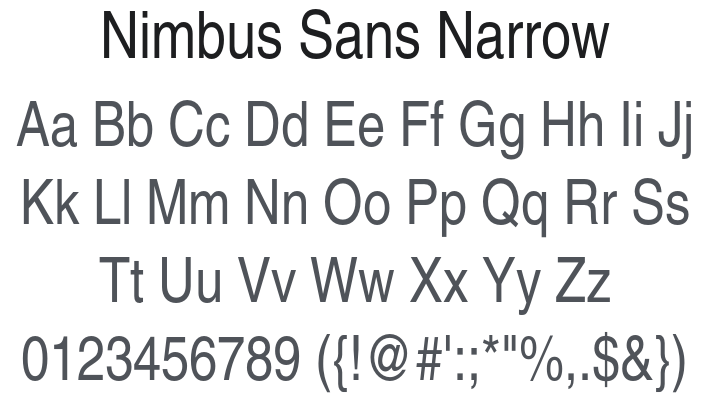
Nimbus Sans Narrow Font Family
by URW++
About Nimbus Sans Narrow
Nimbus Sans Narrow is a condensed grotesque sans-serif typeface from URW++ included in the URW Base35 open-source font package, comprising 35 metrically compatible alternatives to the PostScript Level 2 core fonts. As a free equivalent of Helvetica Narrow, it provides the same space-efficient letterforms ideal for headlines, tightly set captions, data tables, and layouts where horizontal space is limited.